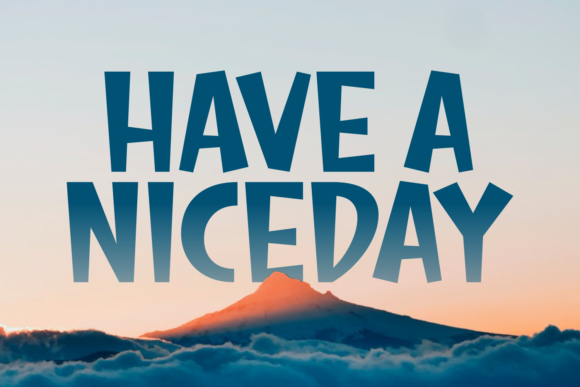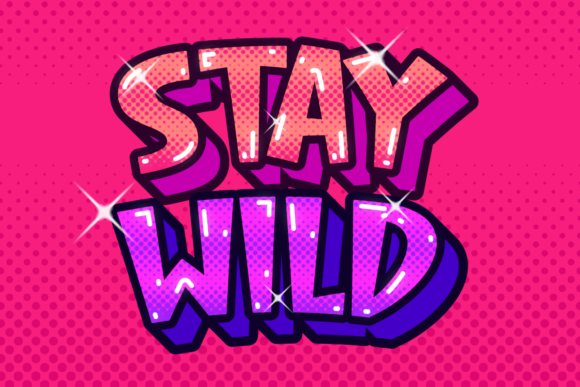
Introducing Hard Wild Font: The Ultimate Display Font for Friendly Designs
Are you tired of using the same old fonts for your designs? Look no further! Hard Wild Font is a childish, easy-to-read display font that’s perfect for adding a touch of friendliness to your projects. Whether you’re a designer, crafter, or simply someone who loves to create, this font is sure to become your new go-to.
What is Hard Wild Font?
Hard Wild Font is a display font designed to convey impeccable friendliness. Its childish and playful style makes it perfect for a variety of projects, from crafts and digital design to presentations and greeting cards. The font’s easy-to-read design ensures that your message is conveyed clearly, making it ideal for designs that require a personal touch.
Characteristics of Hard Wild Font
- Childish and playful style: Hard Wild Font has a fun and youthful vibe that’s perfect for designs that require a friendly tone.
- Easy-to-read: The font’s clear and simple design makes it easy to read, even at small sizes.
- Display font: Hard Wild Font is designed to make a statement, making it perfect for headings, titles, and other display text.
- Versatile: This font can be used for a wide range of projects, from digital design to crafting and paper crafting.
Uses for Hard Wild Font
Hard Wild Font is a versatile font that can be used for a variety of projects, including:
- Crafts: Use Hard Wild Font to add a personal touch to your craft projects, such as scrapbooking, card making, and DIY gifts.
- Digital design: This font is perfect for digital designers who want to add a friendly touch to their designs, such as social media graphics, blog posts, and email newsletters.
- Presentations: Use Hard Wild Font to add a playful touch to your presentations, making them more engaging and fun to read.
- Greeting cards: This font is perfect for creating friendly and approachable greeting cards for special occasions.
Why Choose Hard Wild Font?
With so many fonts to choose from, why should you choose Hard Wild Font? Here are just a few reasons:
- Unique style: Hard Wild Font has a unique and playful style that’s sure to stand out from the crowd.
- Easy to use: This font is easy to read and works well at a variety of sizes, making it perfect for a wide range of projects.
- Friendliness: Hard Wild Font conveys a sense of friendliness and approachability, making it perfect for designs that require a personal touch.
Tips for Using Hard Wild Font
Here are a few tips for getting the most out of Hard Wild Font:
- Use it as a display font: Hard Wild Font is designed to make a statement, so use it as a display font for headings and titles.
- Pair it with other fonts: Experiment with pairing Hard Wild Font with other fonts to create a unique and interesting design.
- Use it for emphasis: Use Hard Wild Font to add emphasis to important text, such as calls-to-action or key messages.
Hard Wild Font is a versatile and friendly display font that’s perfect for a wide range of projects. Its childish and playful style makes it ideal for designs that require a personal touch, while its easy-to-read design ensures that your message is conveyed clearly. Whether you’re a designer, crafter, or simply someone who loves to create, Hard Wild Font is sure to become your new go-to font.